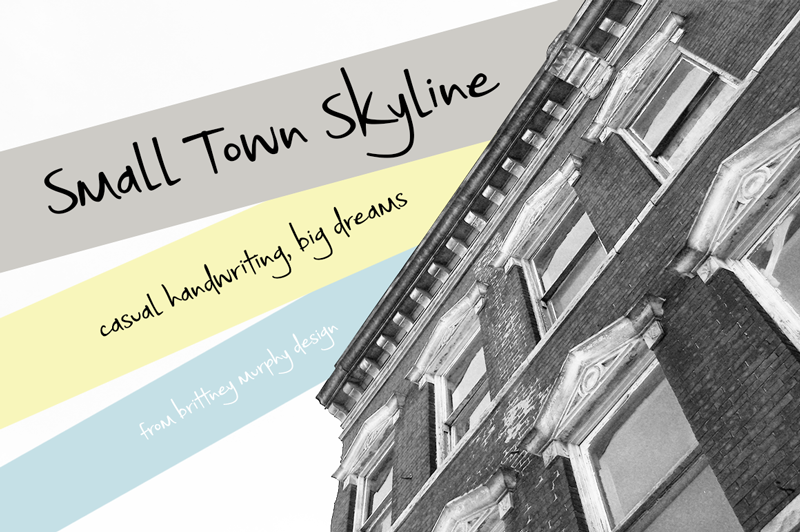
I’ve spent most of my life as a country/small town girl. But just because a place isn’t as big doesn’t make it any smaller. As a good doctor once said, “Nine hundred years of time and space, and I’ve never met anyone who wasn’t important.” So this is my ode to all the small town hearts with big city dreams. Enjoy! Free for personal and non-profit use. For commercial use, please purchase a license: http://brittneymurphydesign.com/downloads/small-town-skyline/ |